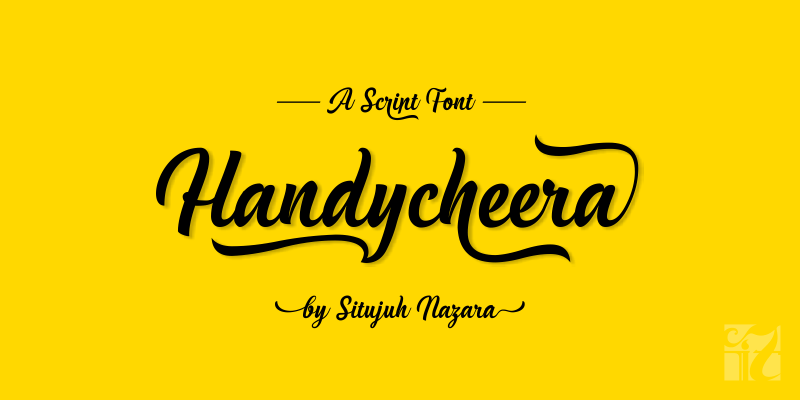
Handycheera Script Font
Handycheera is a stunning font created by Situjuh Nazara. This stunning font is packed with swashes and alternates. The Handycheera font is PUA encoded which means you can easily access the glyphs in any application.